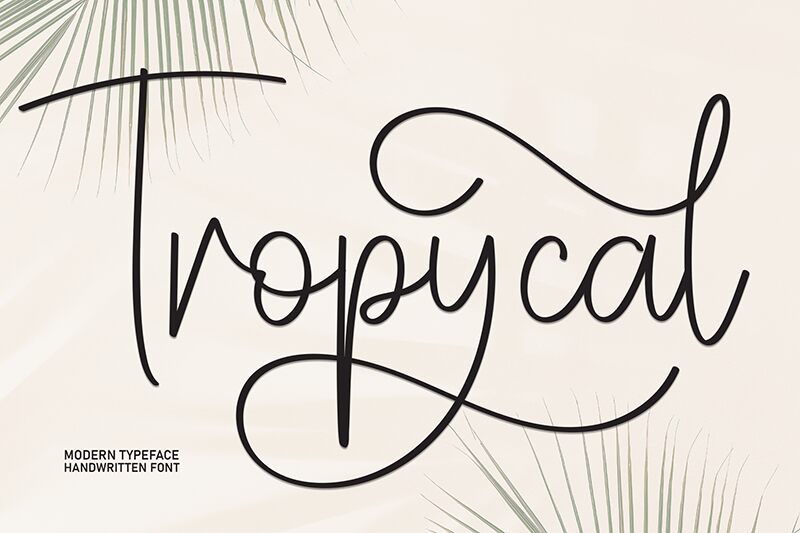
Tropycal
Tropycal font is a free handwritten design resource by Scratchones. Its thin lowercase letters, casual handwritten feel, and flowing appearance make this font an elegant addition to any designer’s arsenal.